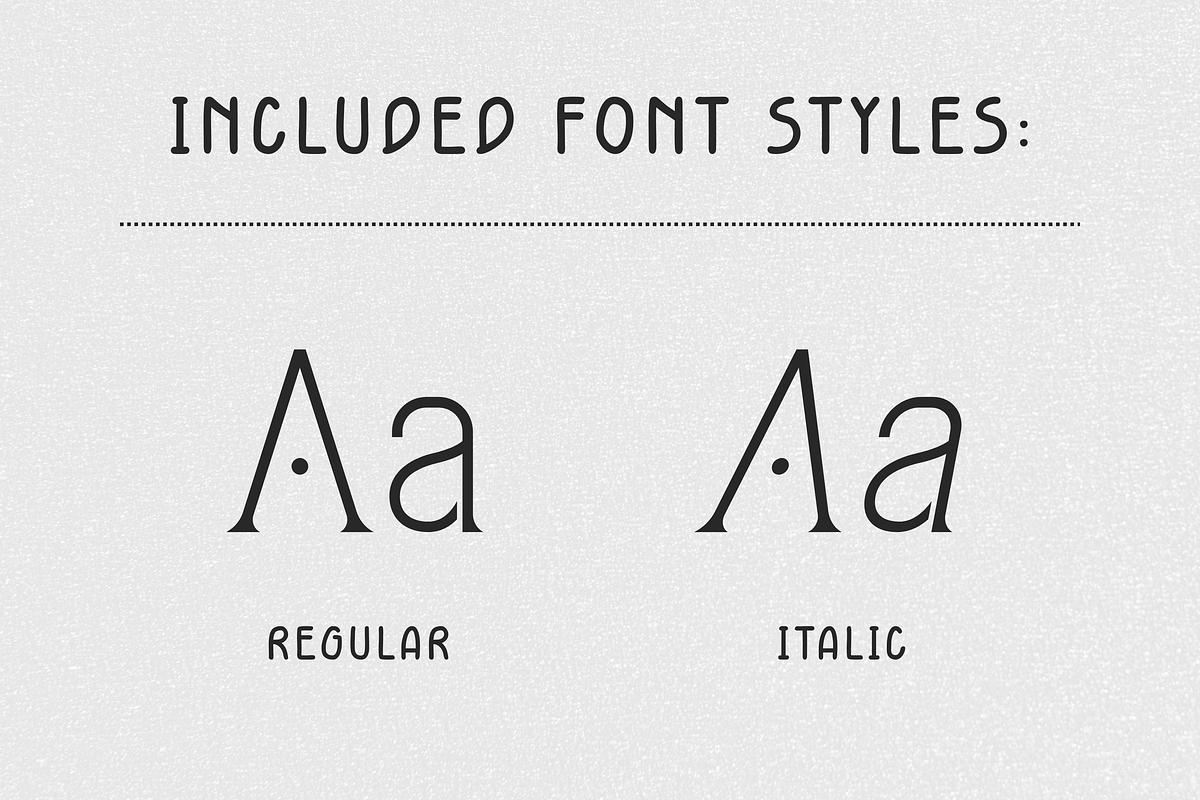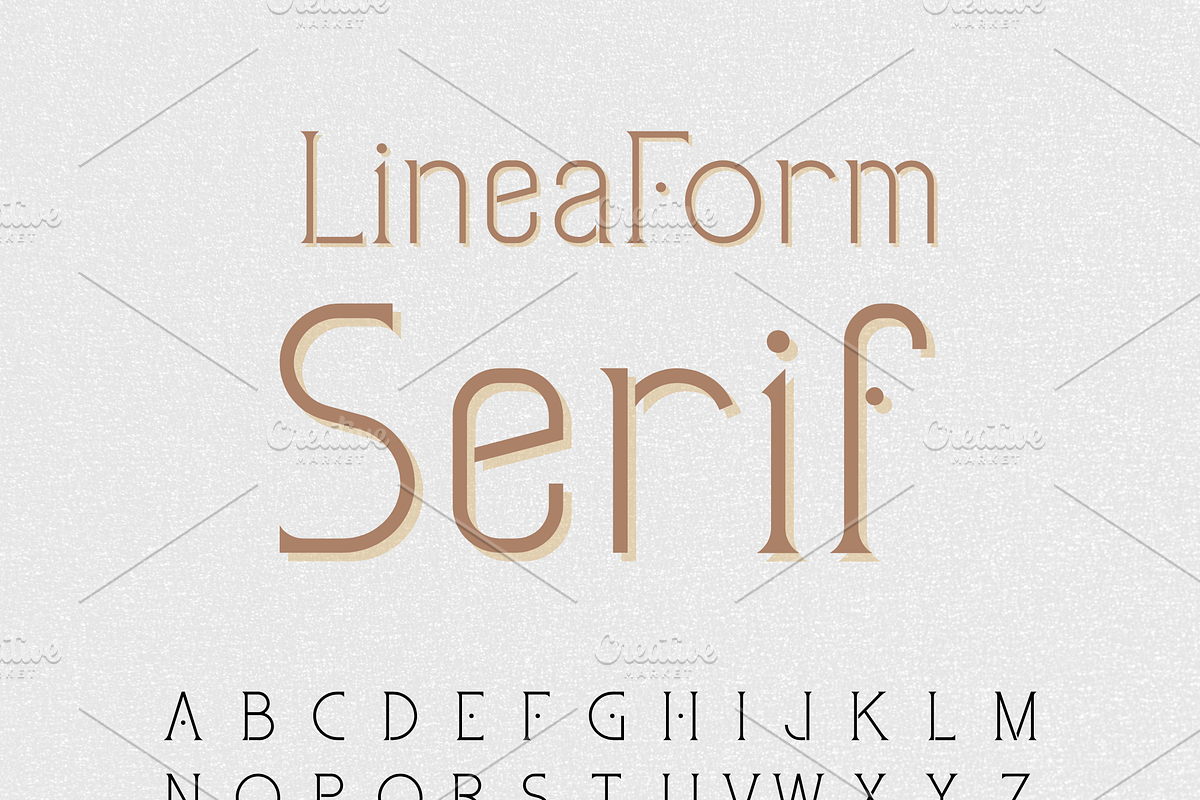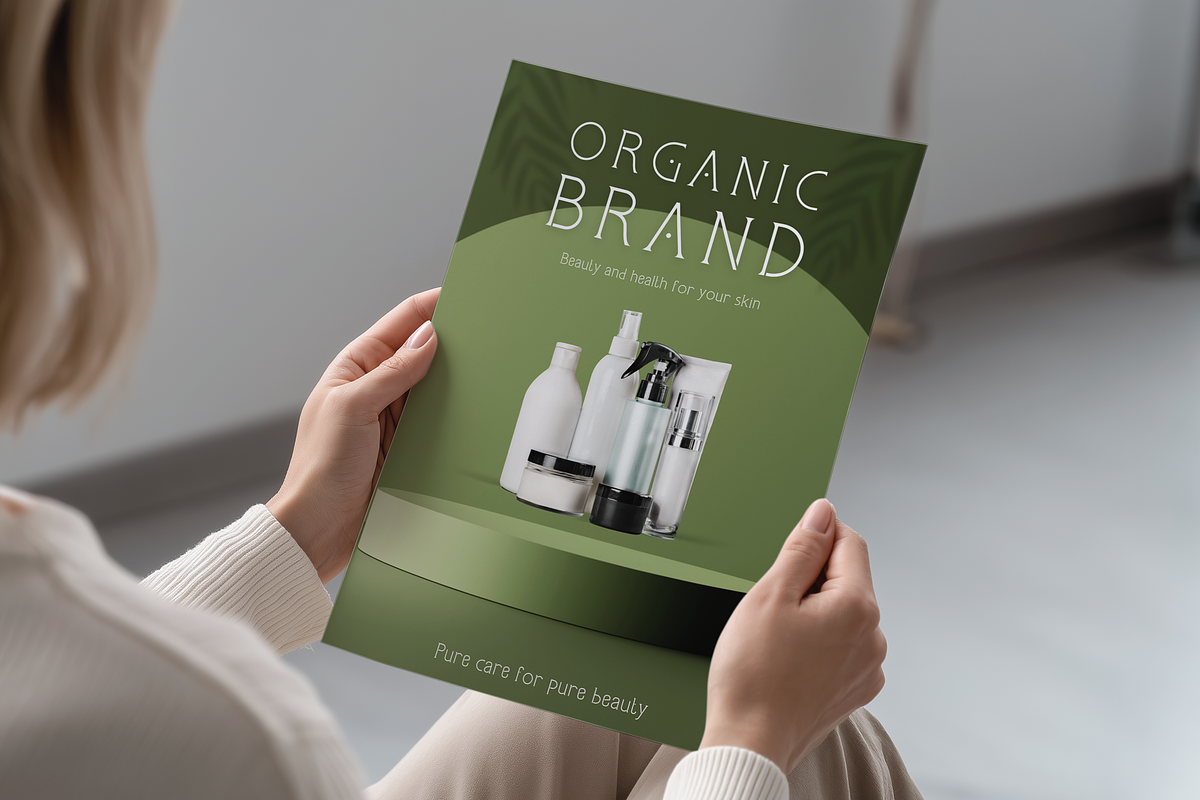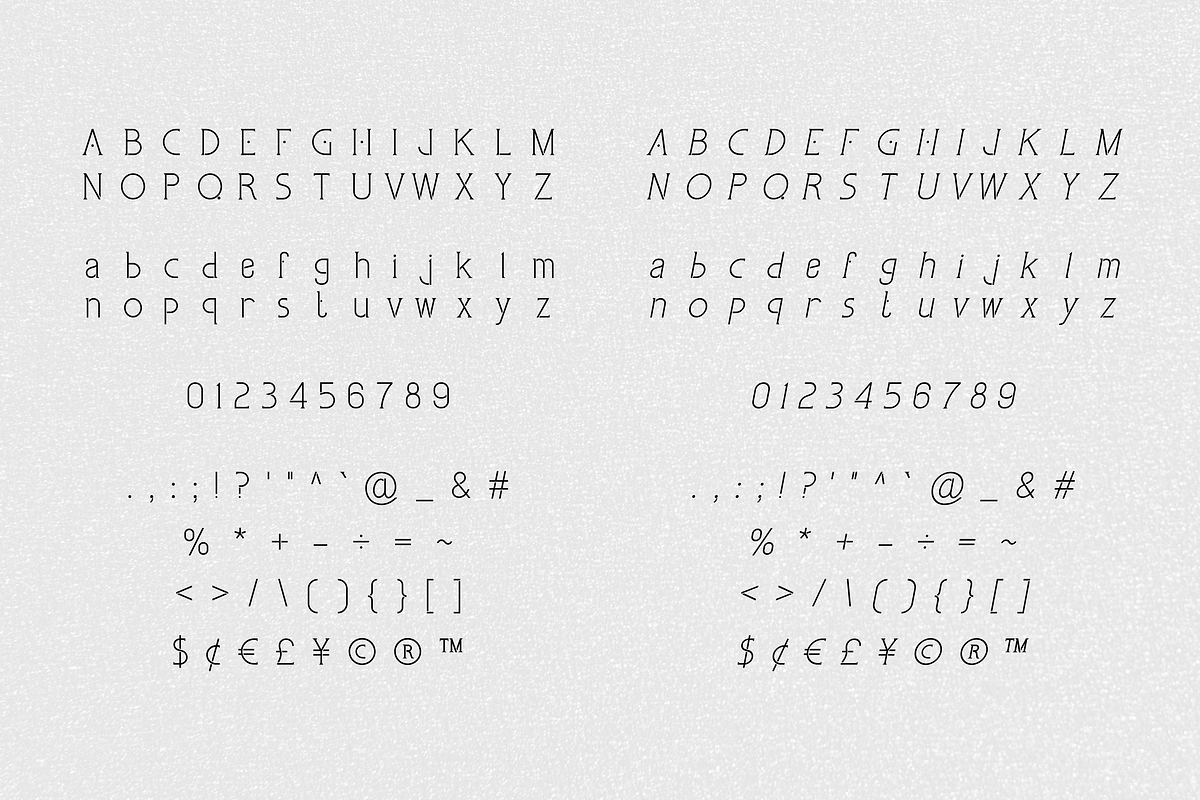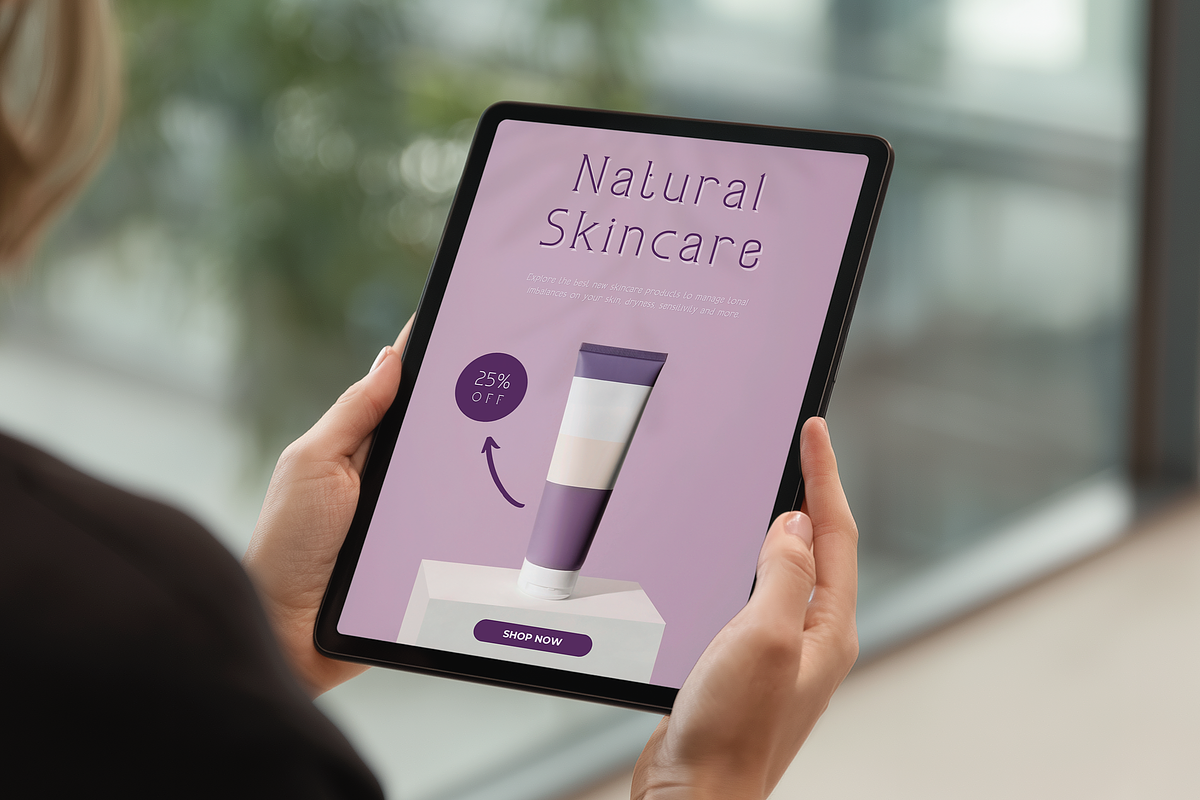
Serif Font - LineaForm
LineaForm Serif – Modern Elegance in Every Line
Introducing LineaForm Serif, a sleek and refined serif typeface with a minimalist twist. Designed for creators who crave sophistication and balance, this font is ideal for logos, branding, wedding invitations, editorial layouts, and more. With clean, geometric lines and subtle detailing, LineaForm brings a high-end feel to any project. Whether you're designing a luxury brand identity or an elegant magazine spread, this typeface delivers style and clarity in perfect harmony.